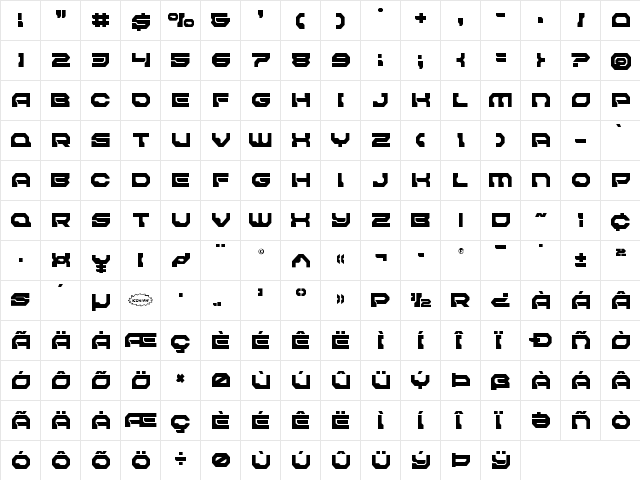
Pulsar Class Solid Semi-Condensed Condensed
Design Context for Pulsar Class Solid Semi-Condensed Typeface
Pulsar Class Solid Semi-Condensed is a composed and adaptable typeface that performs quietly and consistently across a wide range of design contexts. Its narrow stance lets it pack a punch even in space-constrained designs.